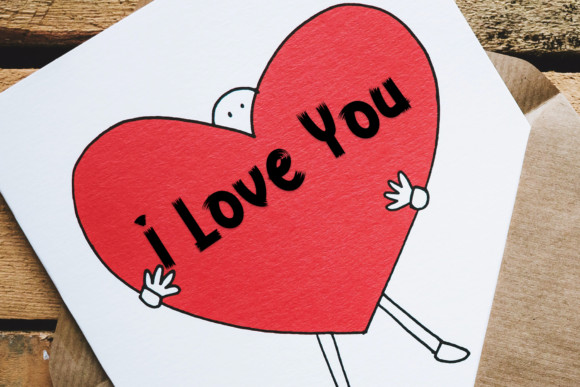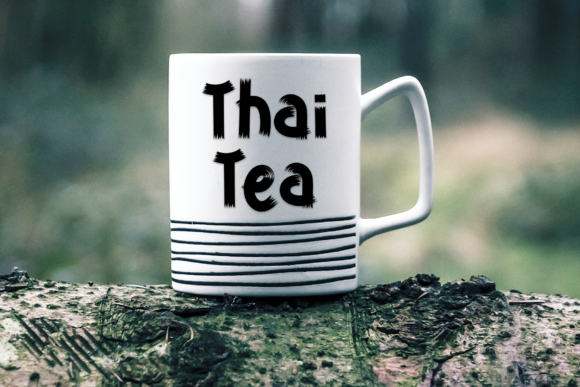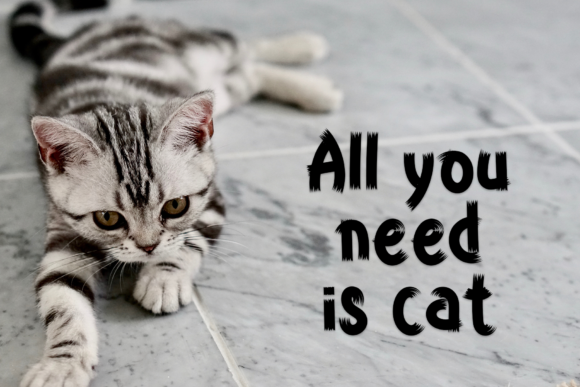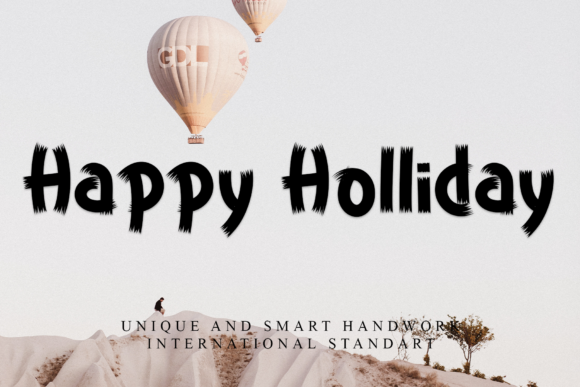
Introduction to Hello Hanny Font Font
Fonts play a crucial role in design, and the Hello Hanny Font font is a typeface that brings both character and versatility to any project. Whether you’re working on a branding project, a website, or a print design, the Hello Hanny Font font offers a unique style that can elevate your work.
Hello Hanny is a cute, incredibly unique and fuzzy display font.
Whether youβre using it for crafting, digital designing, presentations or greeting cards making, itβs perfect .
Key Features of Hello Hanny Font Font
Why Choose Hello Hanny Font Font?
The Hello Hanny Font font is more than just a typeface β it’s a design tool that helps you communicate your message with style and clarity. Its unique character set and versatile design make it suitable for a wide range of applications, from elegant invitations to bold headlines.
With its carefully crafted letterforms and balanced proportions, the Hello Hanny Font font ensures readability and visual appeal across all mediums.
What makes Hello Hanny Font font special?
The Hello Hanny Font font stands out with its unique design, exceptional readability, and versatility across various design applications.